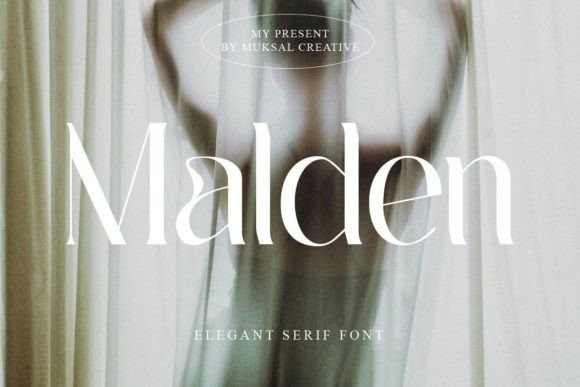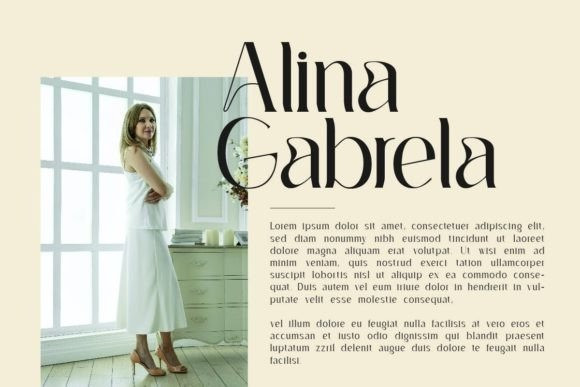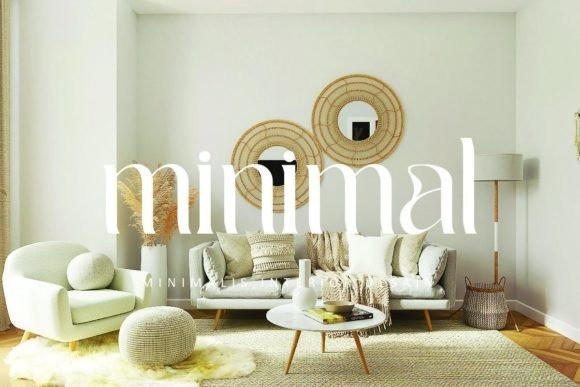
Malden Font
Malden is a classy and elegant serif font. It has a distinct and sophisticated character which makes it great for editorial projects, logo design, branding, product packaging, magazine headers, or simply as a stylish text overlay to any background image.